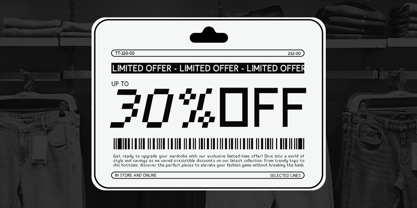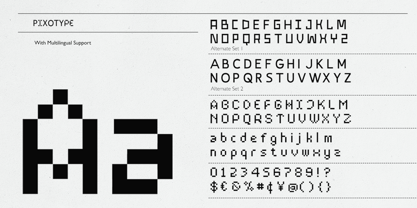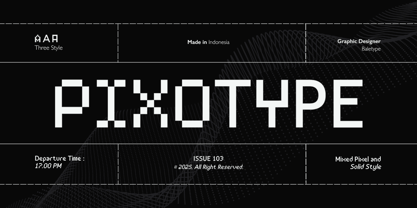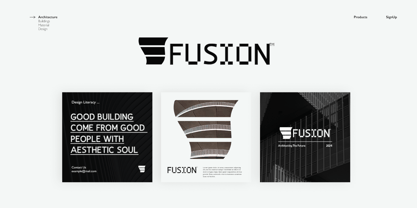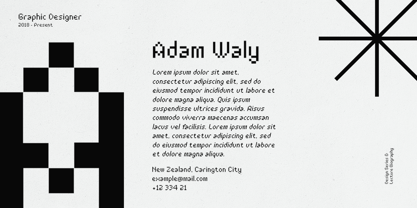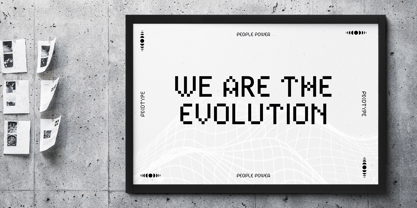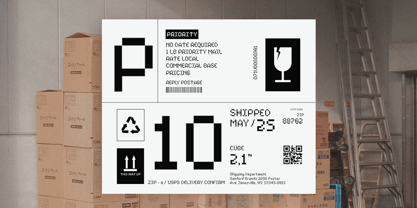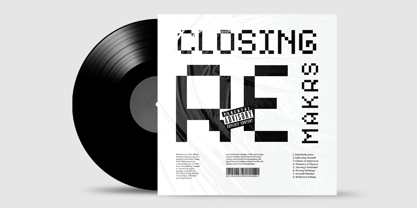
Pixo Type
by Bale Type
The Pixo Type Font Family was designed by Sarid Ezra, Dzikrul Aulia and published by Bale Type. Pixo Type contains 2 styles and family package options.
Pixotype is a pixel sans with solid style as alternates. You can use this font for any purposes such as game, hi-tech poster, logotype, or even quotes. Including two stylish alternates set each uppercase characters that you combine to make your designs more trendy and stunning. This font also support multi language.
Designers: Sarid Ezra, Dzikrul Aulia
Publisher: Bale Type
Foundry: Bale Type